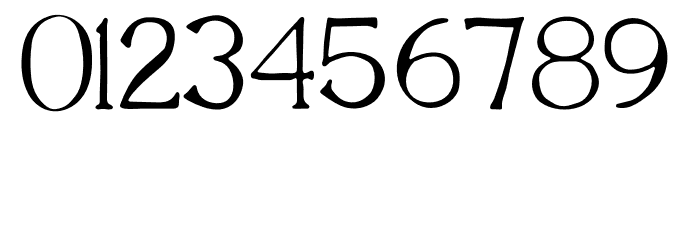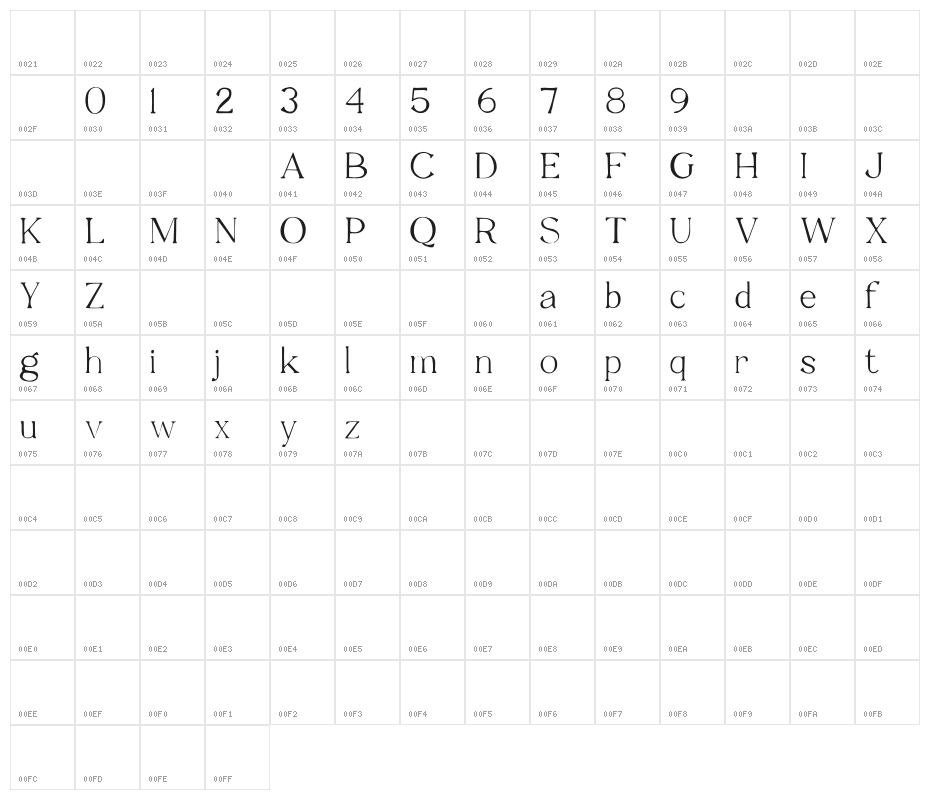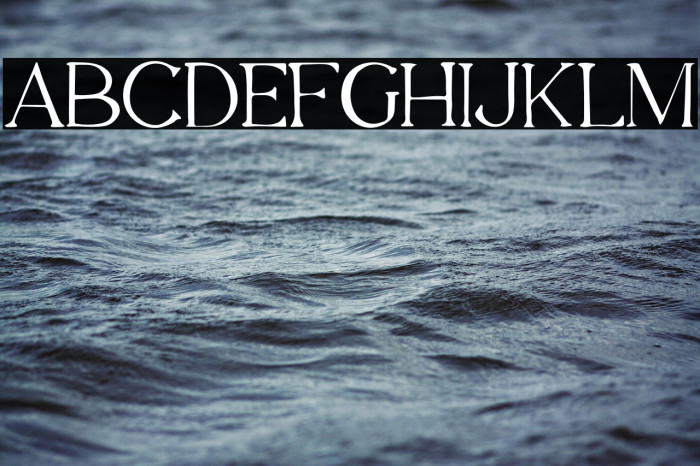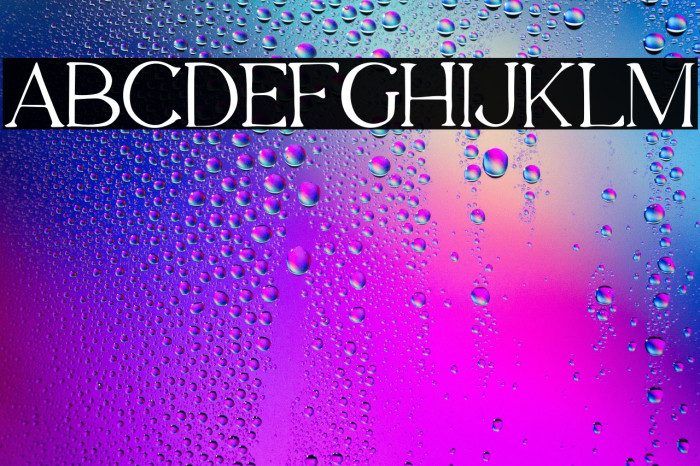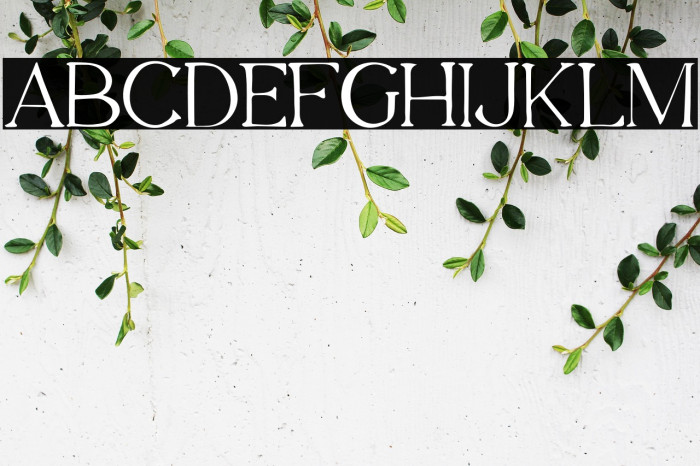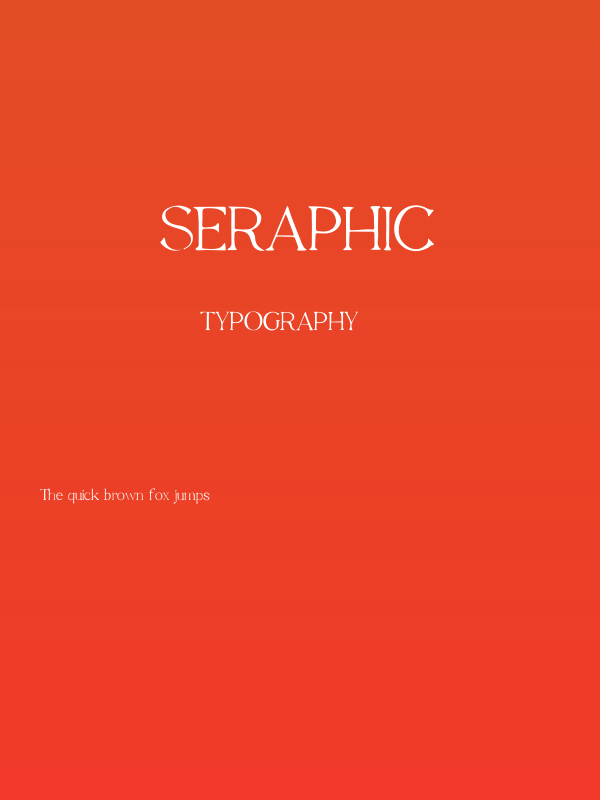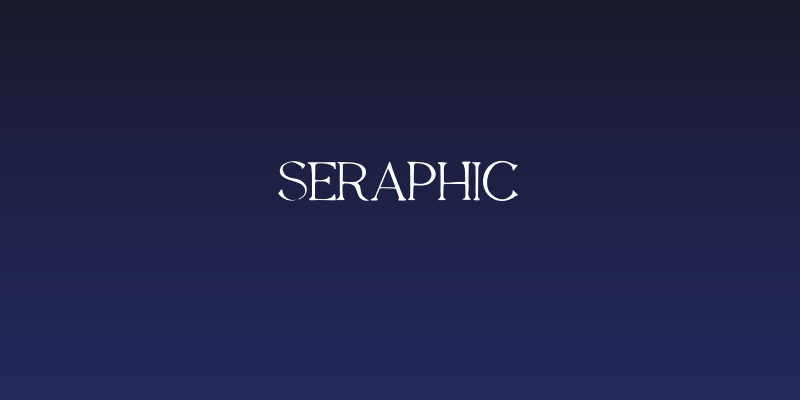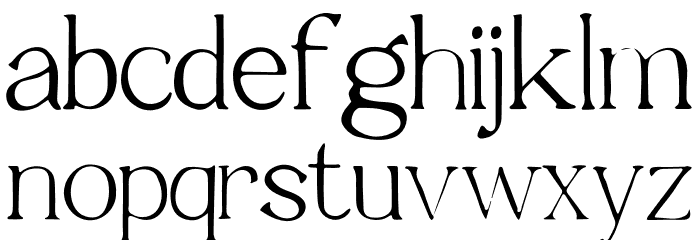
Seraphic Font
Seraphic Description
This font features a unique blend of classic and modern elements, characterized by its elegant serifs and slightly elongated forms. The uppercase letters exhibit a refined sophistication, with subtle curves and a balanced weight distribution. The lowercase letters maintain a harmonious flow, enhancing readability while adding a touch of grace. Numbers are designed with a consistent style, ensuring clarity and uniformity. The overall appearance is both stylish and versatile, making it suitable for a variety of design applications.
| Proposed Projects | Ideal for book covers, wedding invitations, branding, and editorial design. |